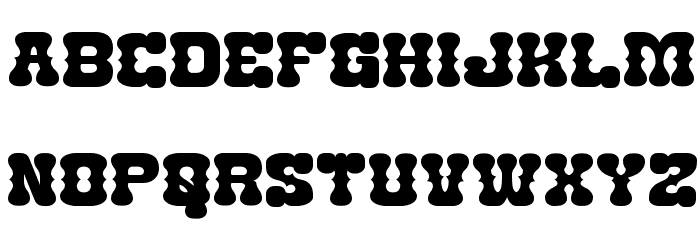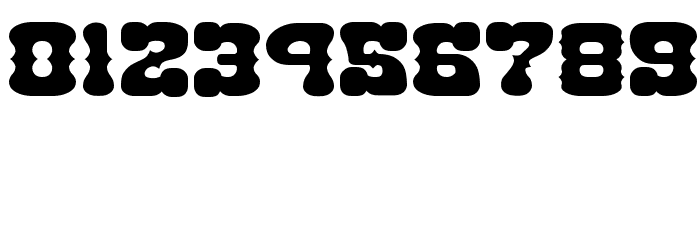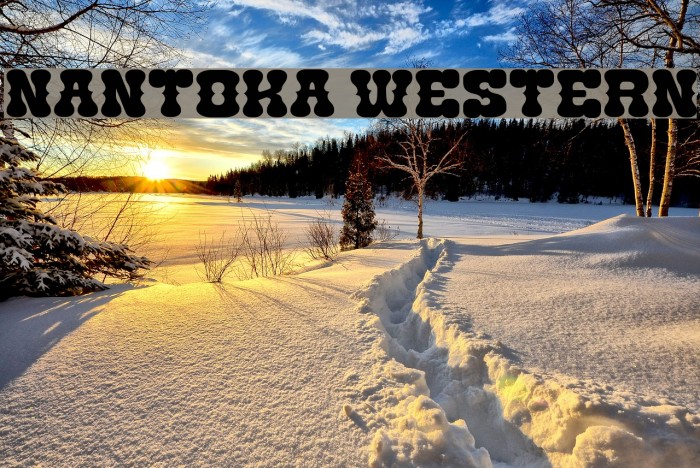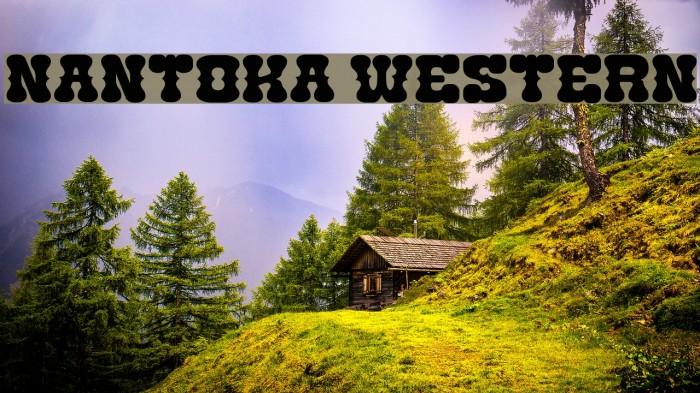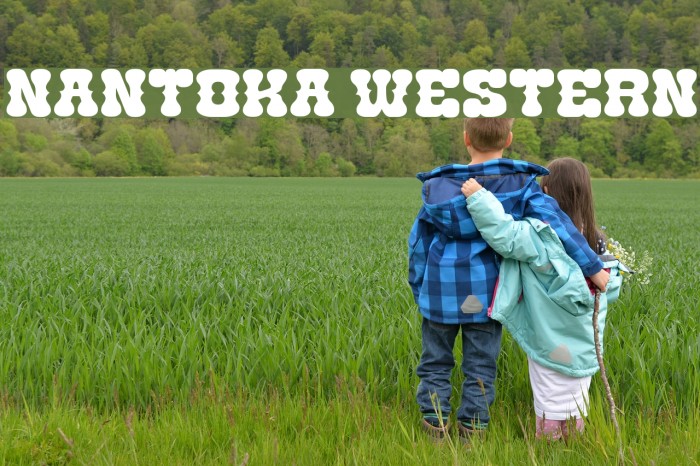
Nantoka Western Font
This font features a bold and playful design with rounded, bubble-like serifs that give it a distinctive Western flair. The characters are thick and robust, with a strong presence that makes them ideal for attention-grabbing headlines or decorative purposes. The uppercase and lowercase letters maintain a consistent style, with exaggerated curves and a slightly condensed form. The numbers and special characters follow the same aesthetic, ensuring a cohesive look across all text elements. This font's unique style is reminiscent of vintage Western posters, making it perfect for projects that require a touch of nostalgia and boldness.
A bold, playful font with rounded serifs and a Western flair.
- Font: Nantoka Western
- Proposed Projects: Ideal for Western-themed posters, playful branding, or eye-catching headlines.
- Overall Style: Vintage